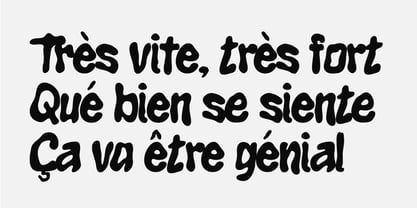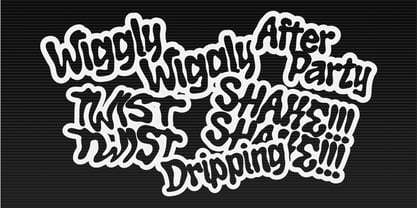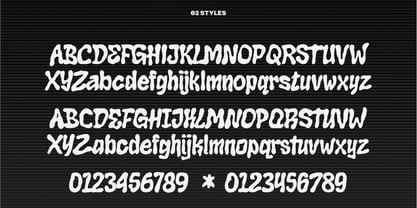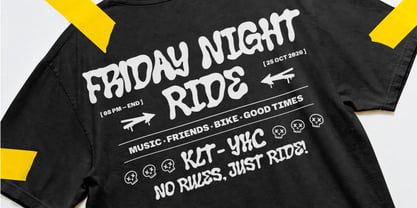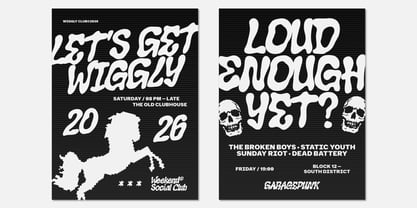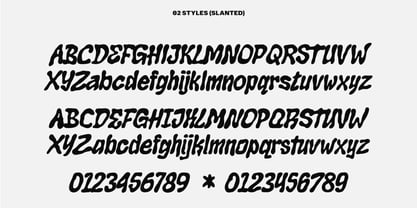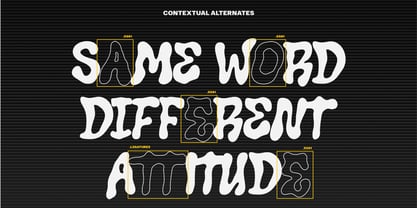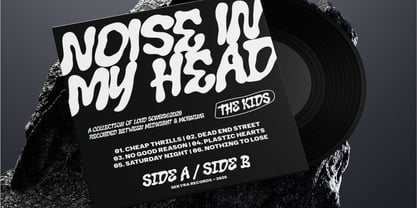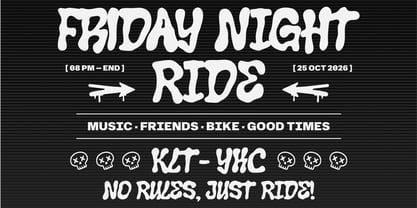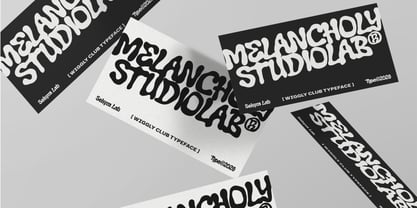
Wiggly Club
La famille de polices Wiggly Club a été conçue par Hanif Al Irsyad et publiée par Sekyra Lab. Wiggly Club contient 2 styles. En savoir plus sur cette famille
Wiggly Club is a playful hand-drawn display font designed to bring a bold, wobbly, and expressive personality to your creative projects. Featuring chunky organic letterforms, irregular curves, and a distinctive handmade appearance, Wiggly Club is perfect for posters, music artwork, branding, packaging, apparel, stickers, social media graphics, and eye-catching headlines.
The family includes 2 styles: Regular and Slanted, giving you both a relaxed playful look and a more energetic, dynamic alternative. With contextual alternates, stylistic ligatures, multilingual support, and expressive letterforms, Wiggly Club lets you create typography that feels spontaneous, unconventional, and full of character.